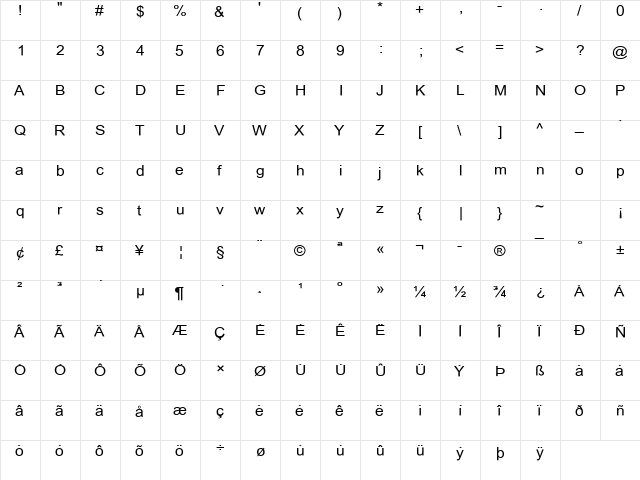
Arial Super Regular
Design Context for Arial Super Typeface
Arial Super takes a measured approach to typography — its balanced proportions and neutral character make it a reliable workhorse for both digital and print work.